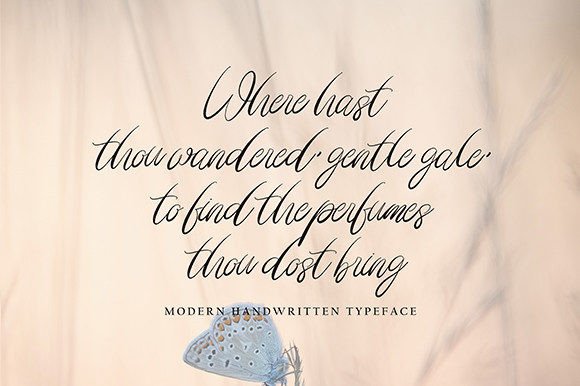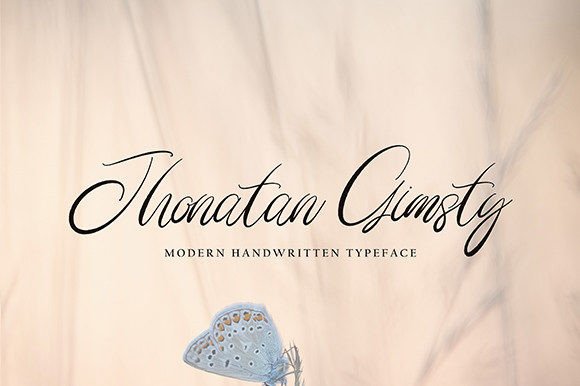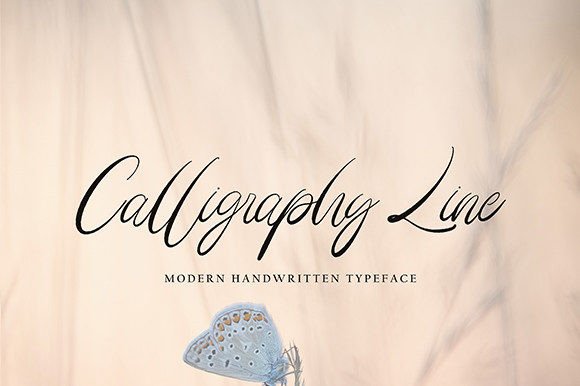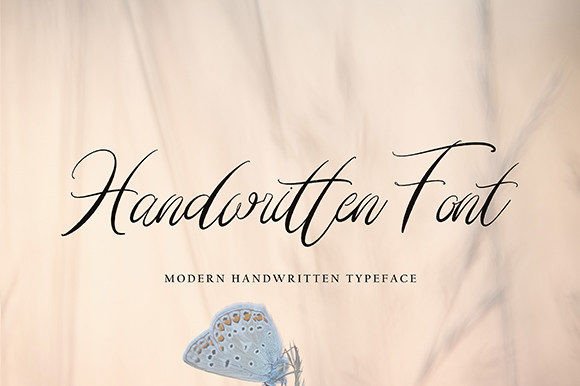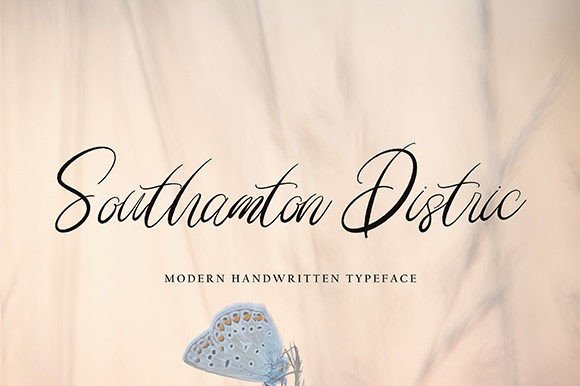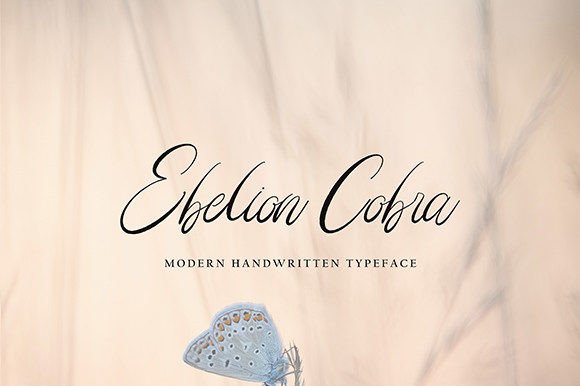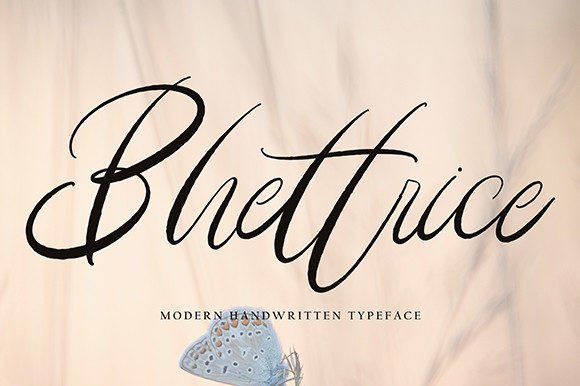
As designers, we’ve all been there – staring at a blank canvas, trying to come up with the perfect combination of words and visuals to bring our vision to life. The blank page can be intimidating, but the right font can be the spark that ignites the creativity. For me, it was the moment I stumbled upon the Bhettrice Font – a beautifully flowing script font that seemed to dance across the page.
| 📌 Product Name | Bhettrice Font |
| 👤 Author | Pineungtype & Missinklab |
Bhettrice Font is a modern script font designed to add a touch of elegance and sophistication to any project. Whether you’re creating quotes, logos, blog headers, posters, or invitations, this font is sure to make a statement. Its versatility and beauty make it a valuable asset for any designer looking to elevate their work.
- Unique Characteristic: Bhettrice features a unique blend of modern and vintage elements, making it suitable for a wide range of designs, from elegant to playful
Bhettrice Font Review
Overall, I think Bhettrice Font is a unique and eye-catching choice for designers looking to add some flair to their projects. ✨ One of the things that stands out to me is the font’s versatility – it can work well in both modern and vintage contexts, making it a great option for designers who like to experiment with different styles.
Another thing I appreciate about Bhettrice Font is its excellent legibility. ✨ The font is clear and easy to read, even at smaller sizes, making it a great choice for body text or smaller headlines. Additionally, the font’s subtle texture and organic feel add a nice tactile quality to digital designs.
- ⚠️ Limited character set: I found that the font’s character set is relatively limited, which may be a problem for designers working on projects that require a wide range of special characters or languages.
- ⚠️ Not suitable for small text: While Bhettrice Font is generally easy to read, it’s not the best choice for very small text. The font’s texture and organic feel can make small text look fuzzy or difficult to read.
Overall, I think Bhettrice Font is a solid choice for designers who want to add some personality to their projects. While it has some limitations, its unique style and excellent legibility make it a great option for the right project.
Tips for Getting the Most Out of Bhettrice Font
For the best results, use Bhettrice font in bold or italic styles to add emphasis to your text. You can also pair it with other fonts to create a unique and visually appealing design.
The Bhettrice font is ideal for use in creative and artistic projects, such as:
- Wedding invitations
- Business cards
- Menu designs
- Posters